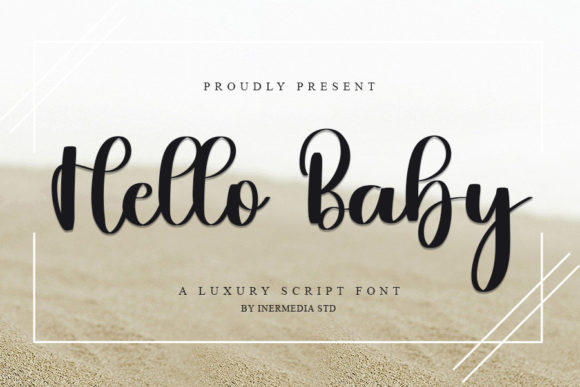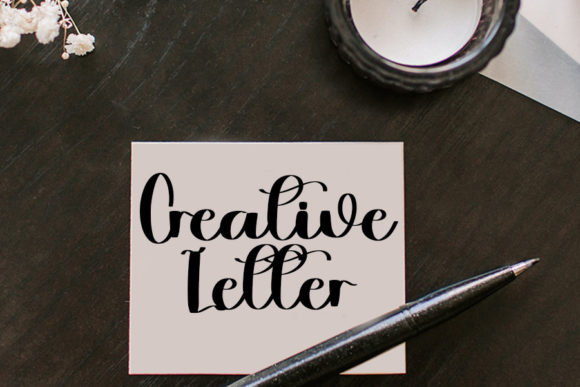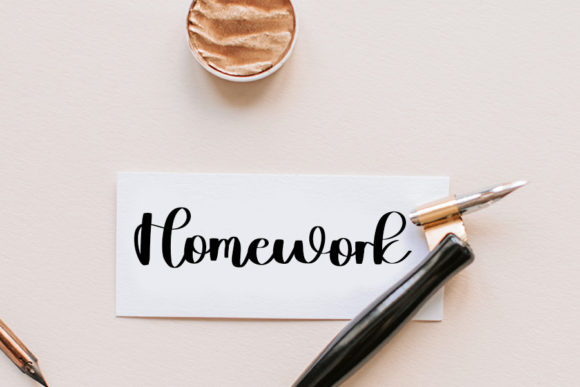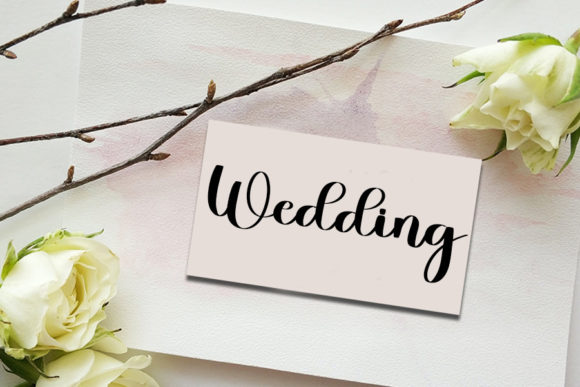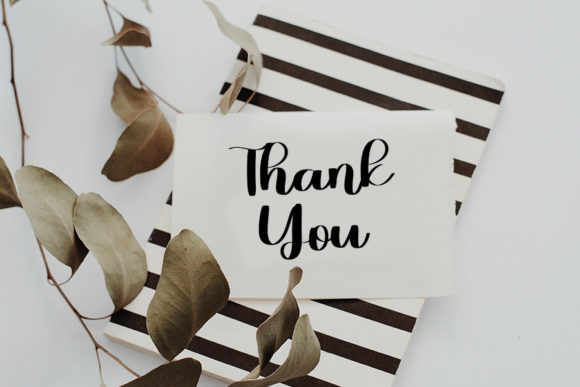
Hello Baby Font
Hello Baby is a beautiful and refined script font. It has a classy, elegant and modern look that can be used for logos, branding, invitations, stationery, wedding designs, social media posts, and much more!